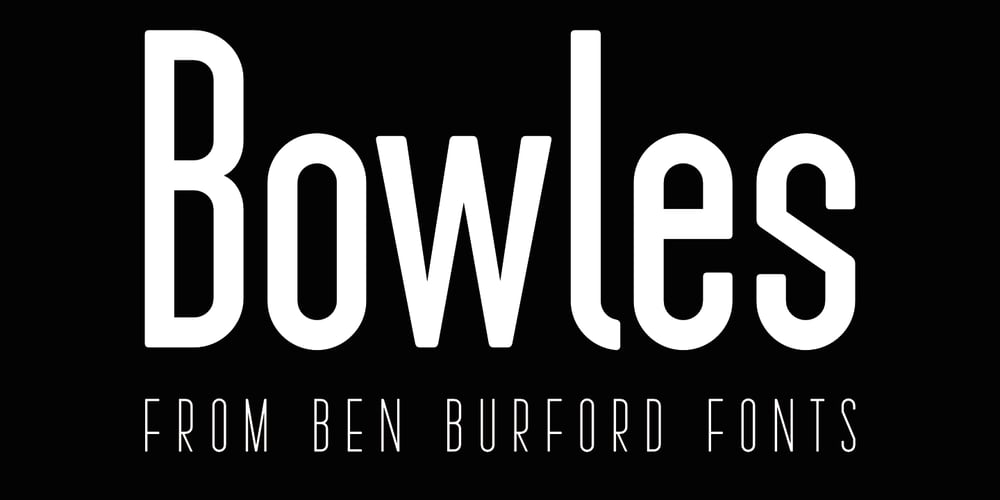
Bowles
Bowles font
Bowles Font Family was designed by Ben Burford and published by Ben Burford Fonts. Bowles contains 5 styles and family package options. With its roots firmly in the early 20th century and the Art Deco Period Bowles gives a strong impact in all of its 5 weights and with its proportionally rounded corners for each weight it it has a vintage feel while maintaining its modernist roots. Ideal for a wide race of applications